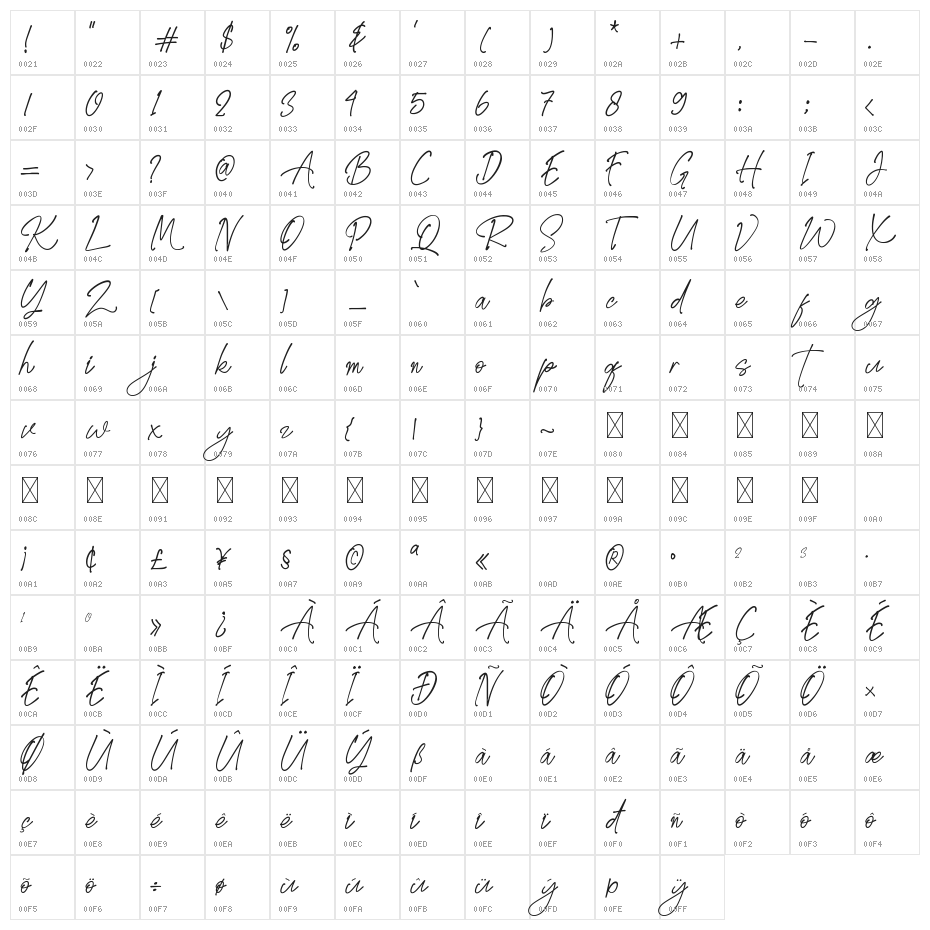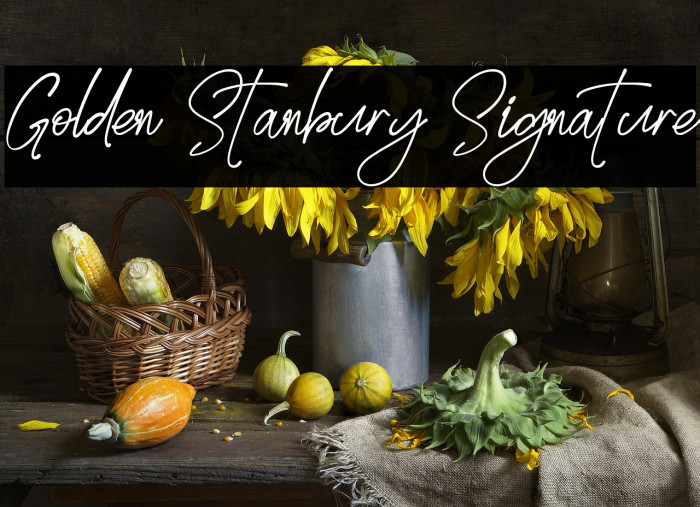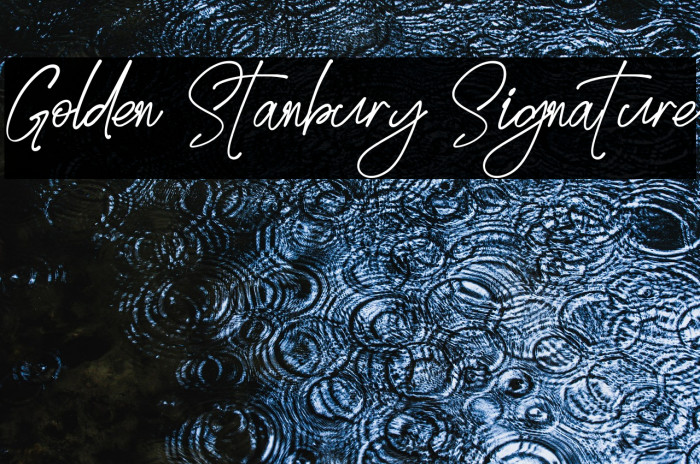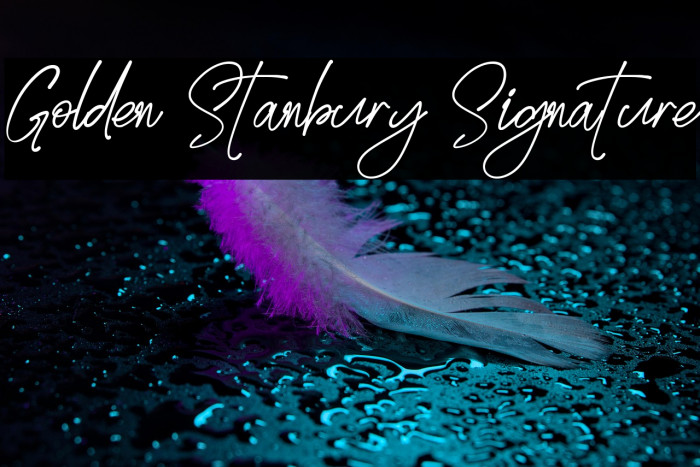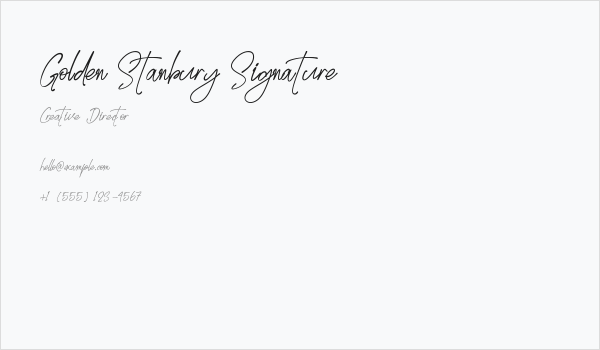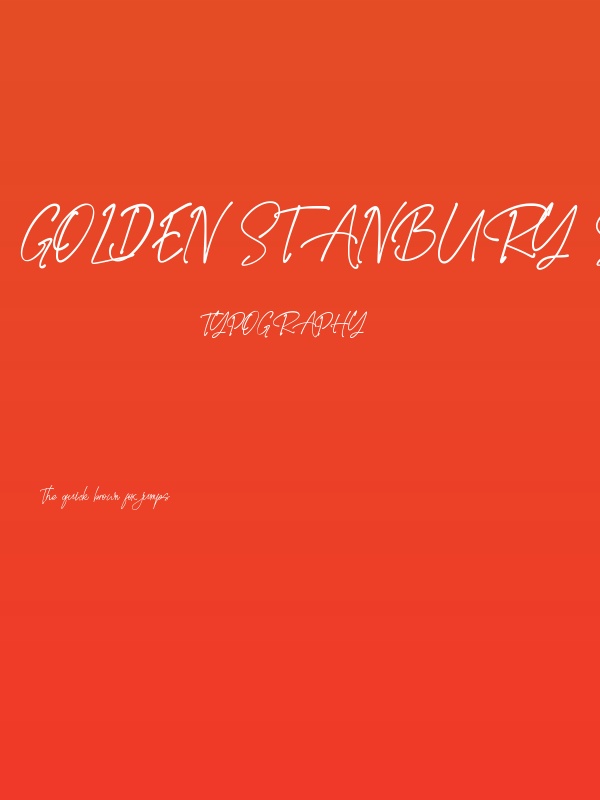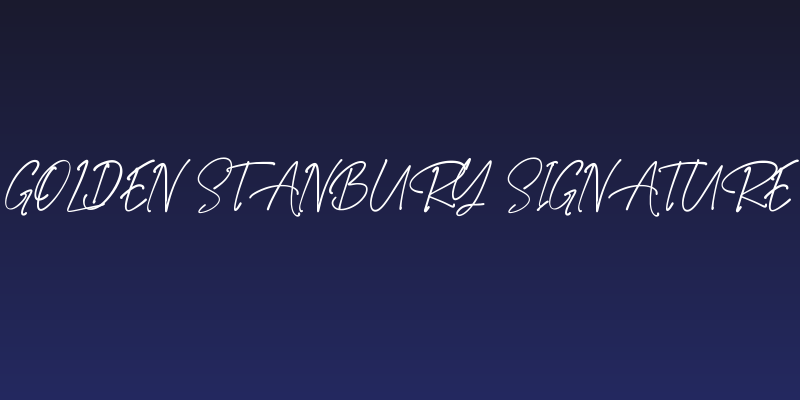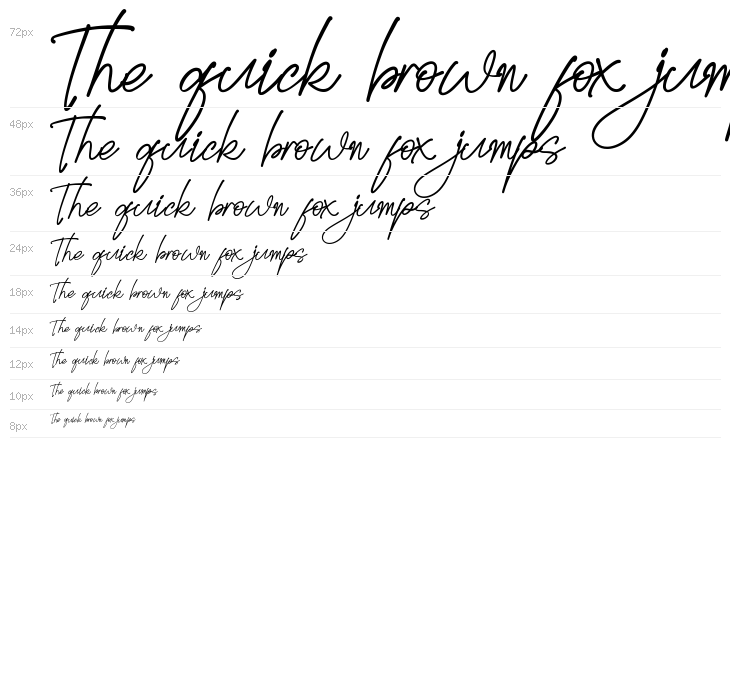
Golden Stanbury Signature Font
Golden Stanbury Signature Description
This font exudes a sophisticated and elegant style, characterized by its fluid, cursive script that mimics the natural flow of handwriting. The uppercase letters are tall and graceful, with sweeping curves and delicate loops, while the lowercase letters maintain a consistent rhythm and flow. The numerals are distinct yet harmonious with the overall script style, featuring smooth curves and a slightly playful touch. The special characters are seamlessly integrated, maintaining the font's cohesive and stylish appearance. This font is perfect for projects that require a personal, handwritten touch, offering both elegance and readability.